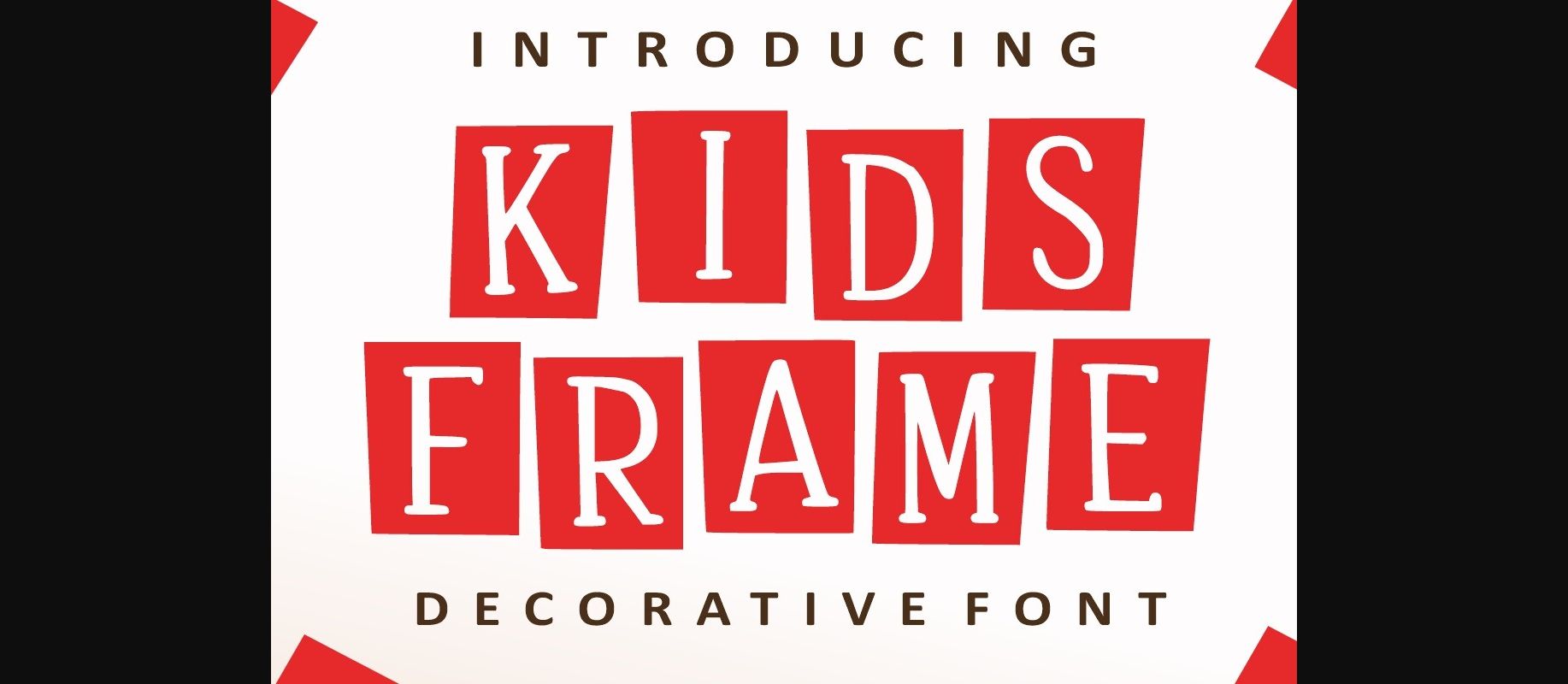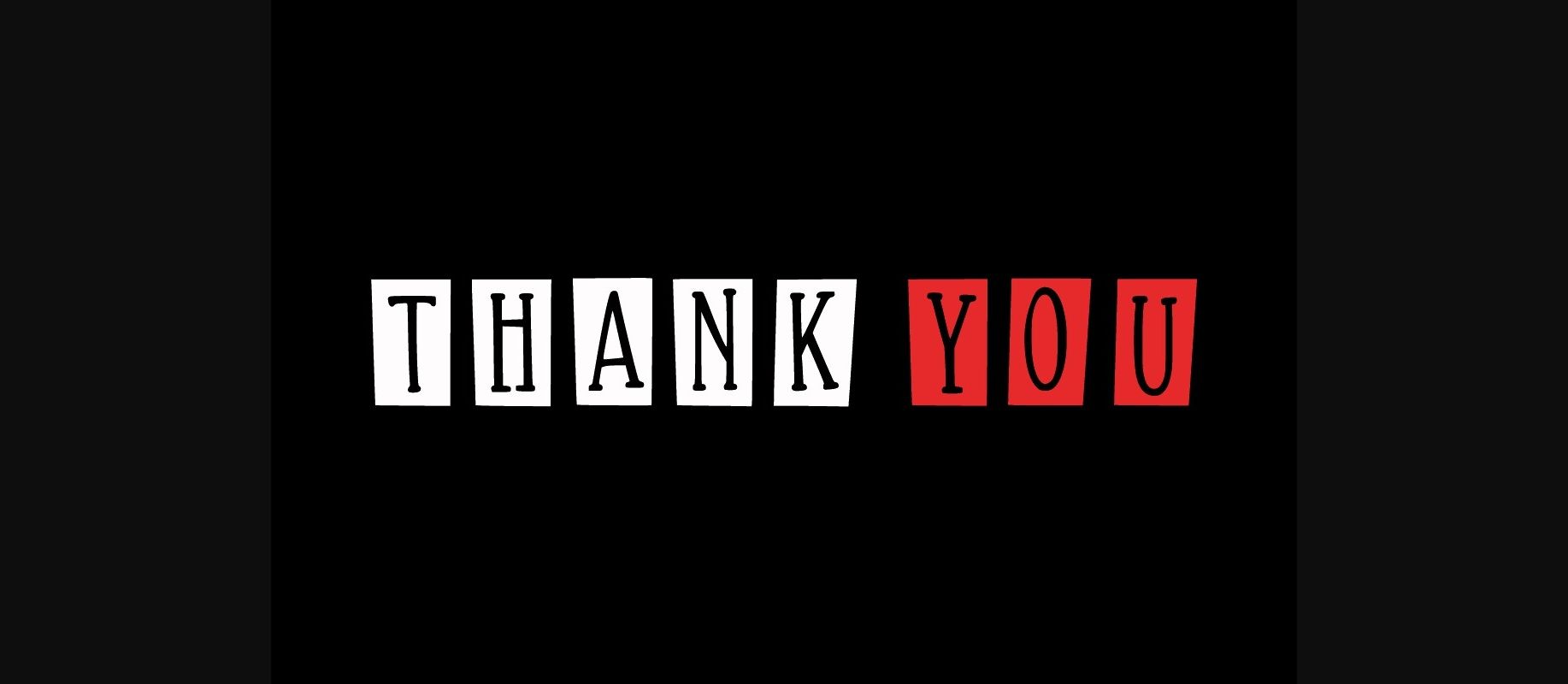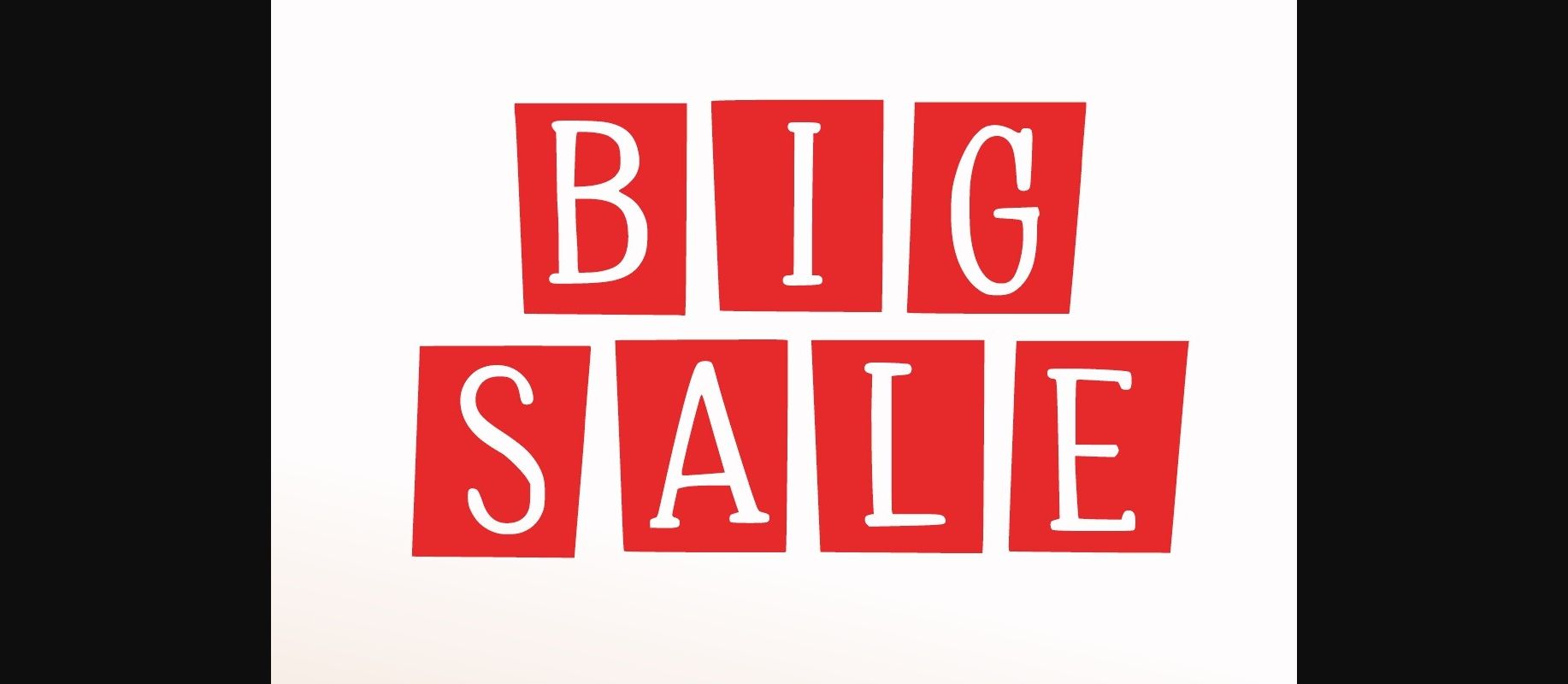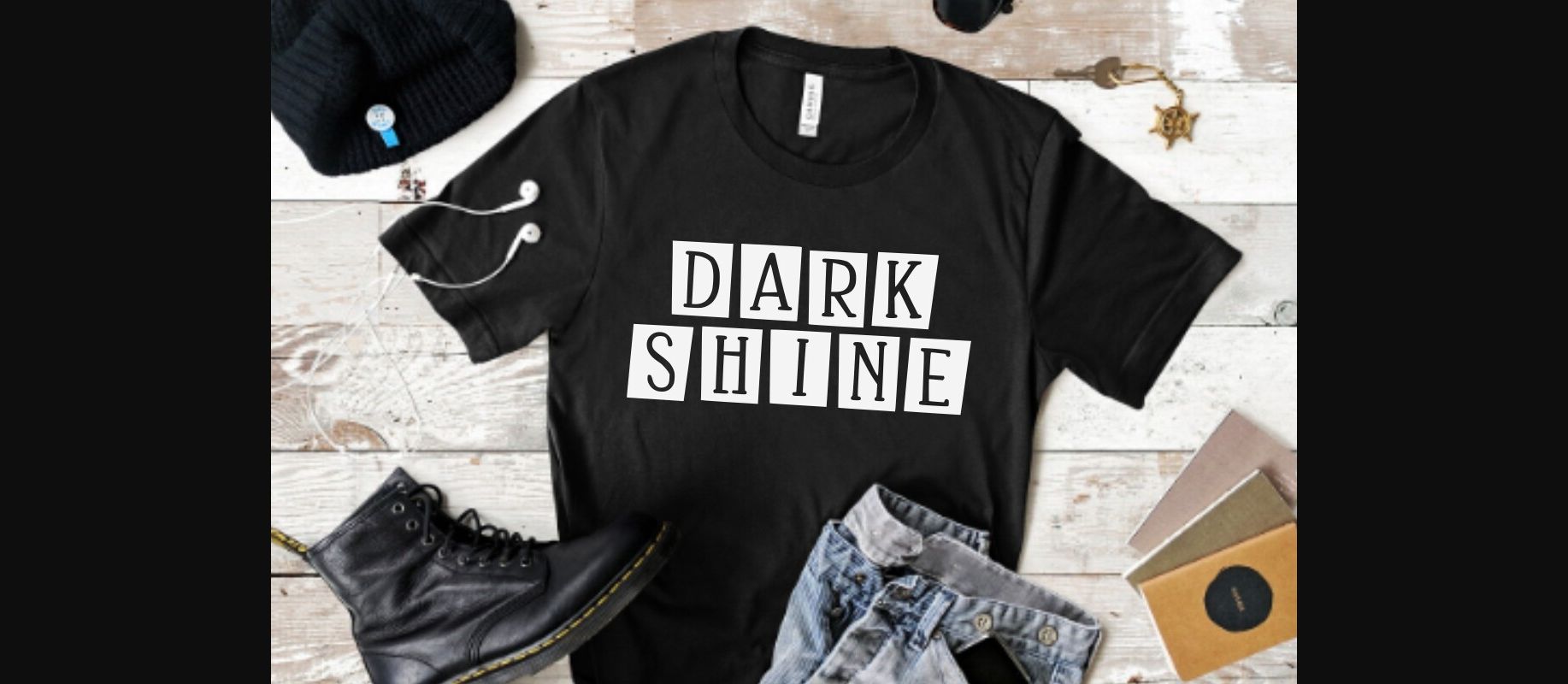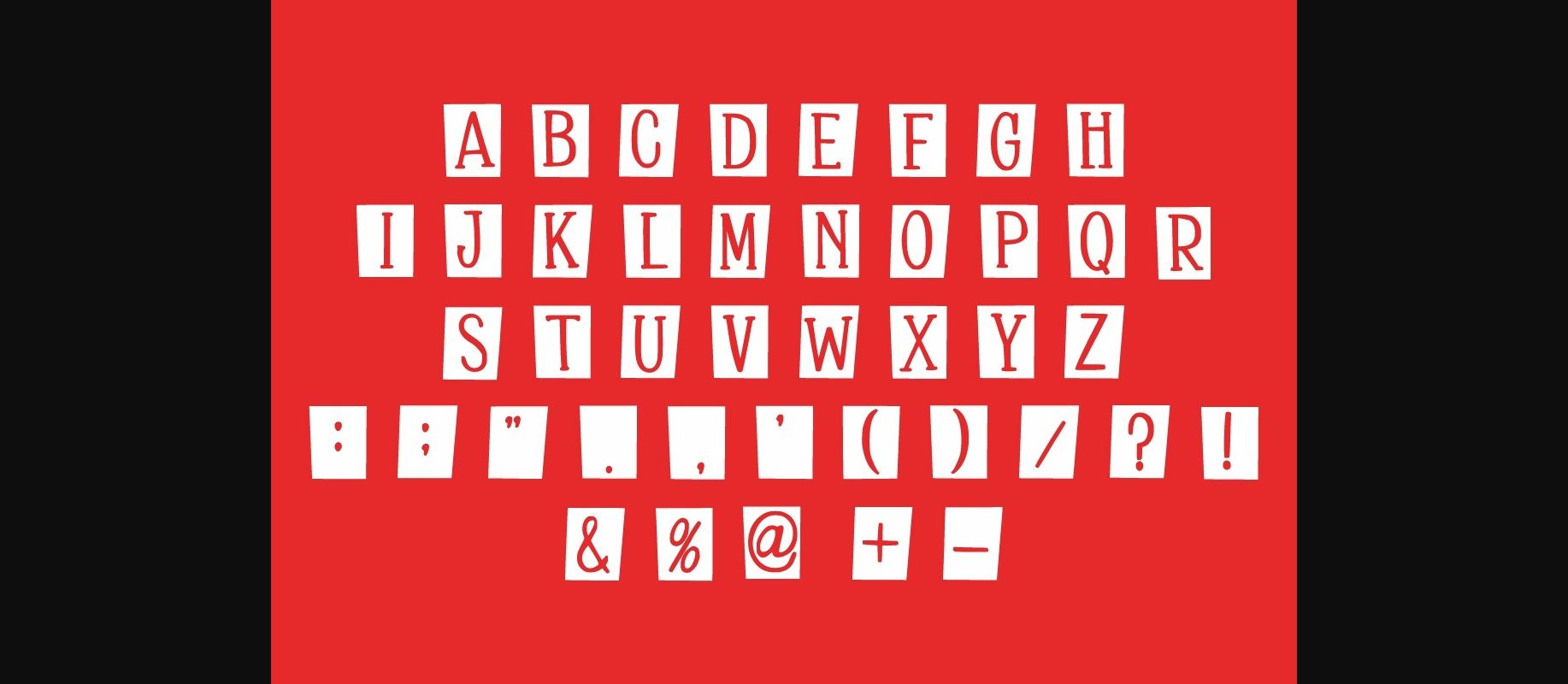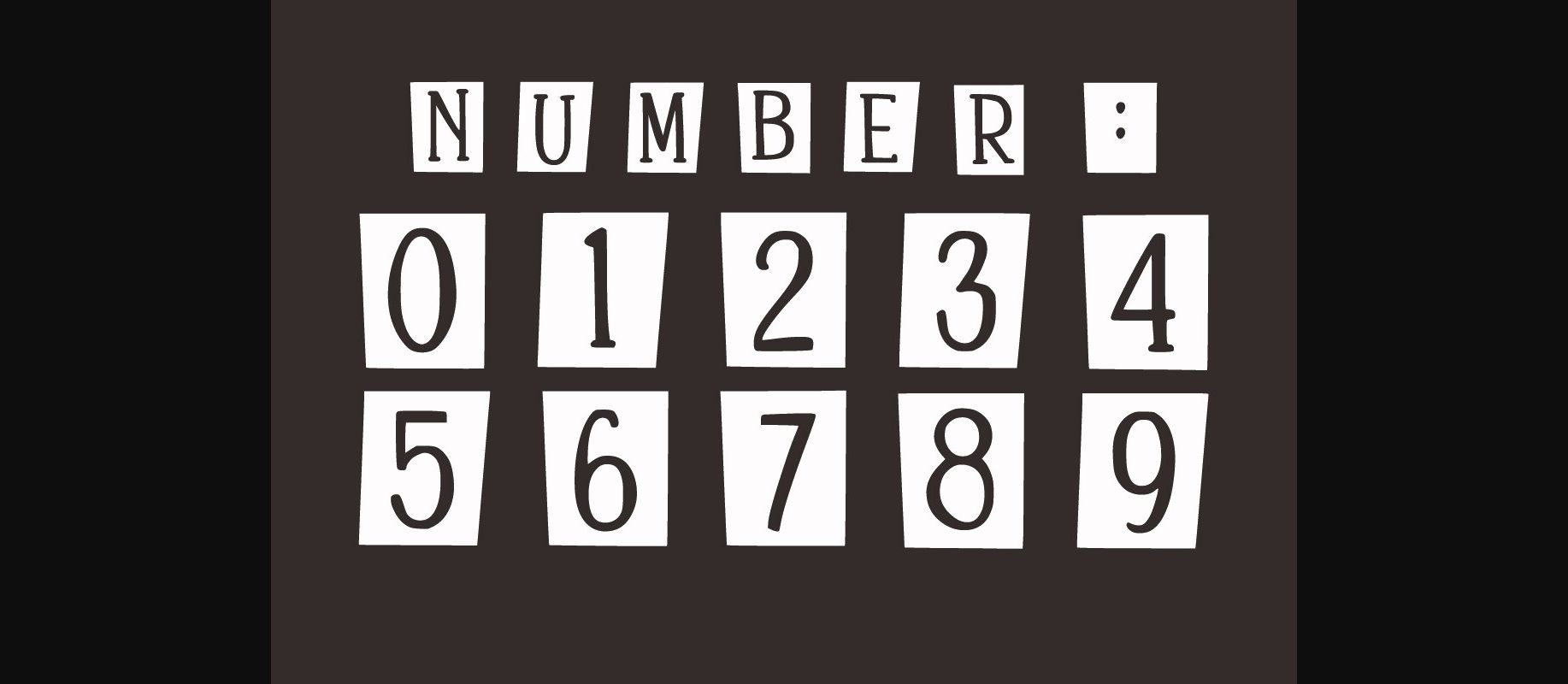
Kids Frame Font
About Kids Frame Font
Kids Frame is a cool and fun decorative font with frames around each letter. Add it to each of your promotion, price tag, party invitation, banner, gathering or pretty much any design that requires a touch of youth and joy.